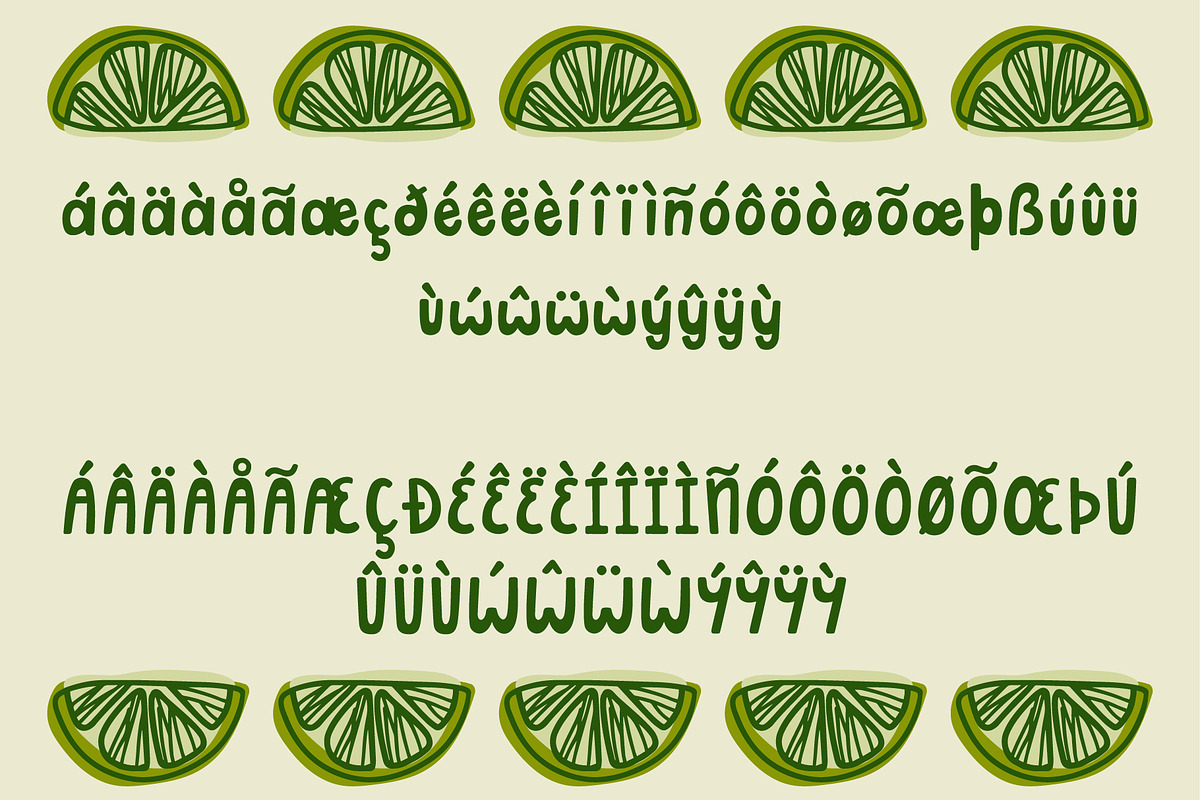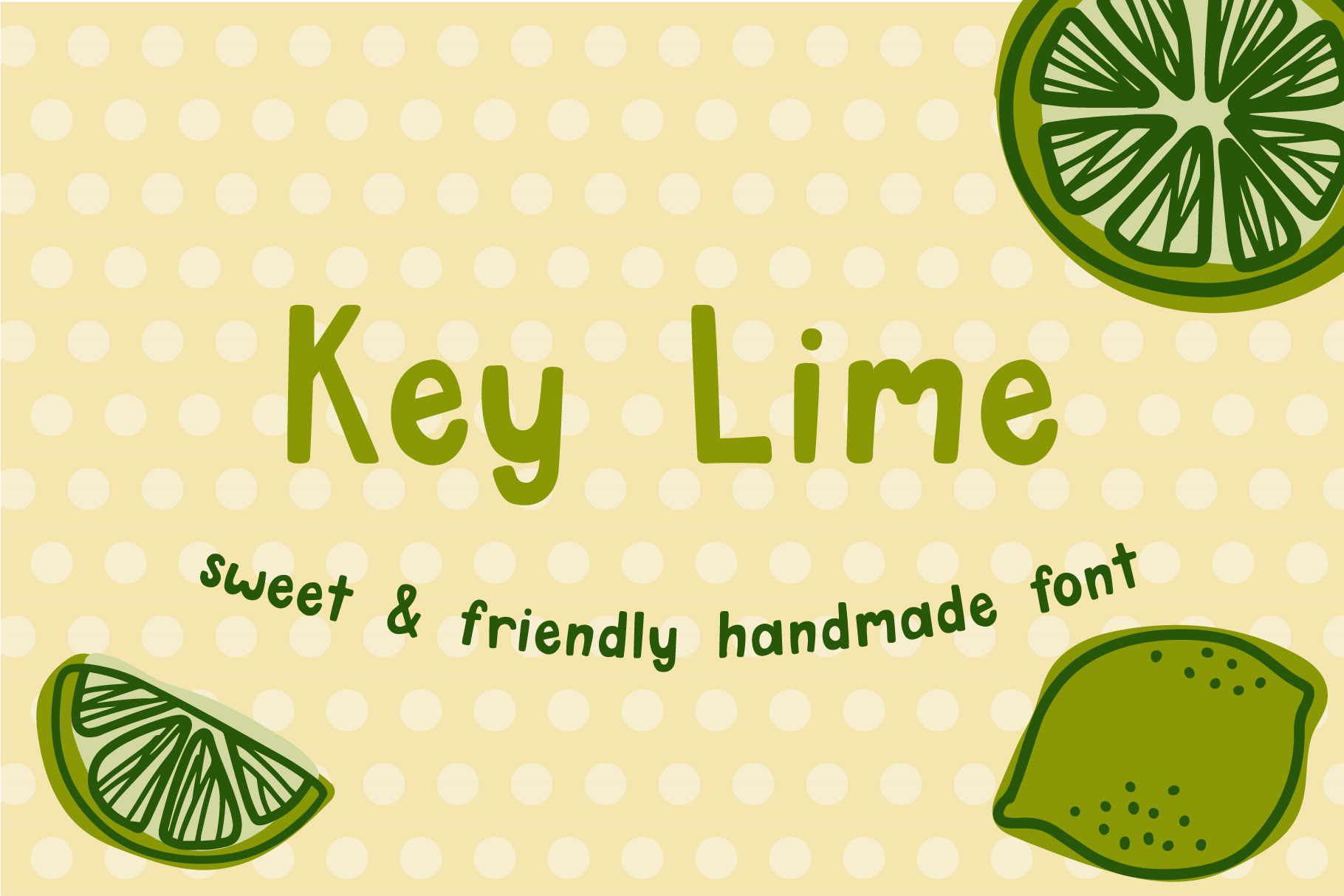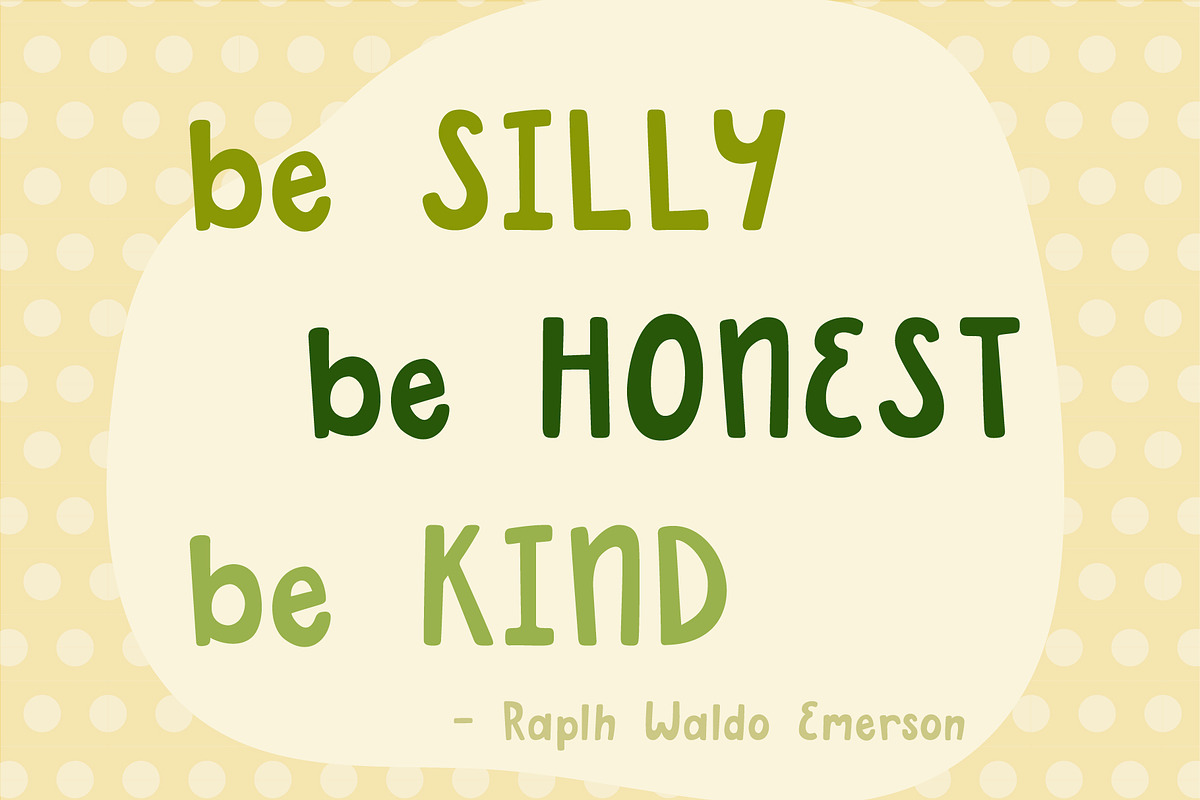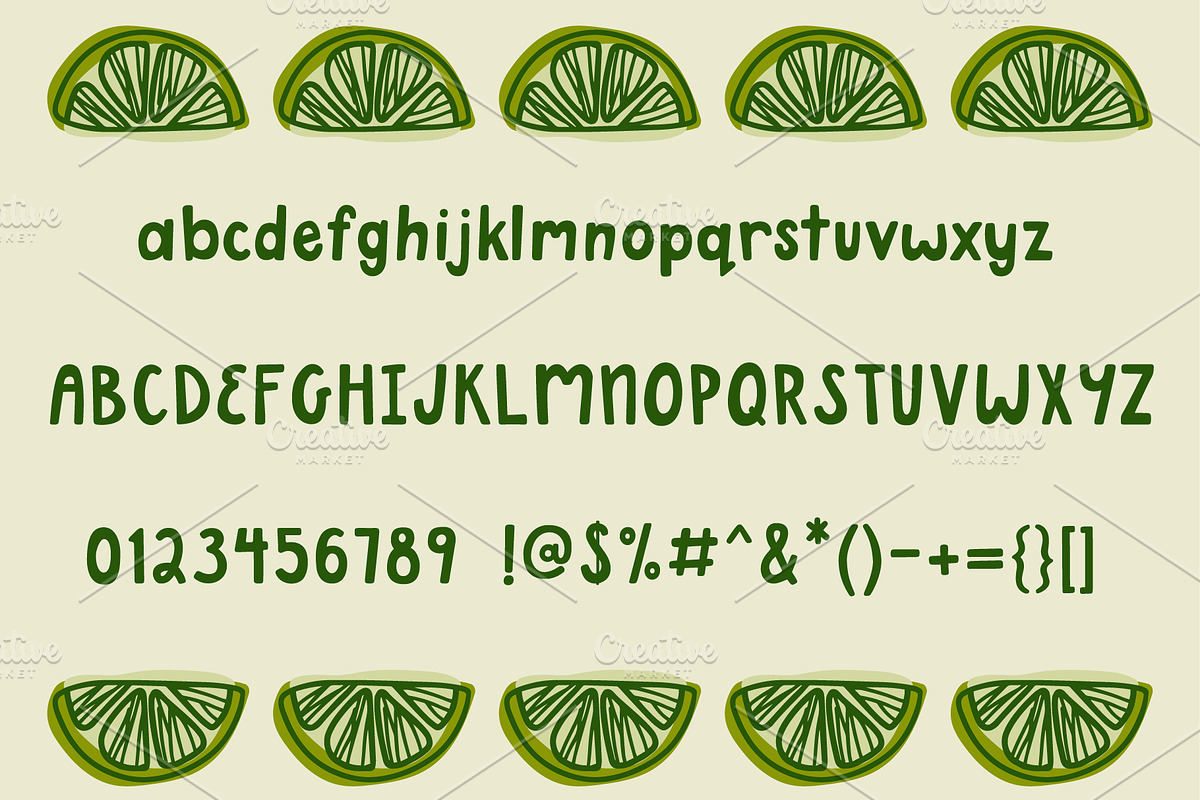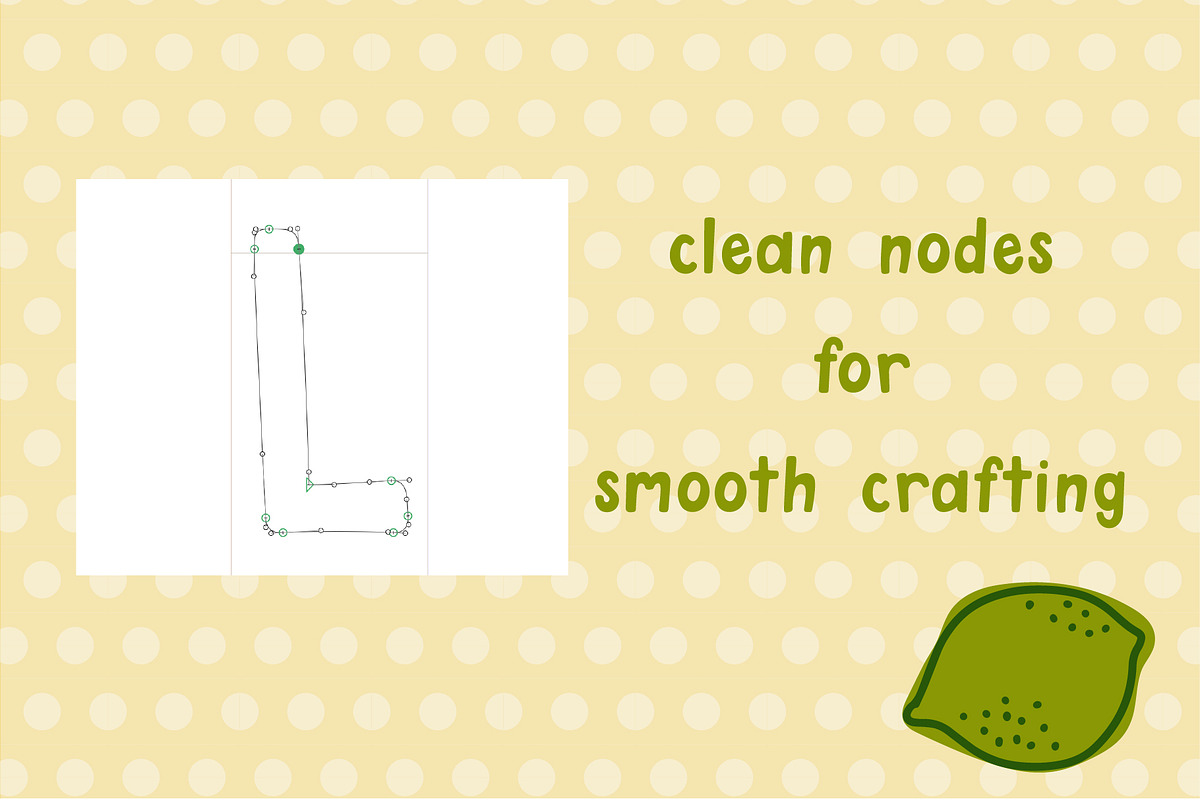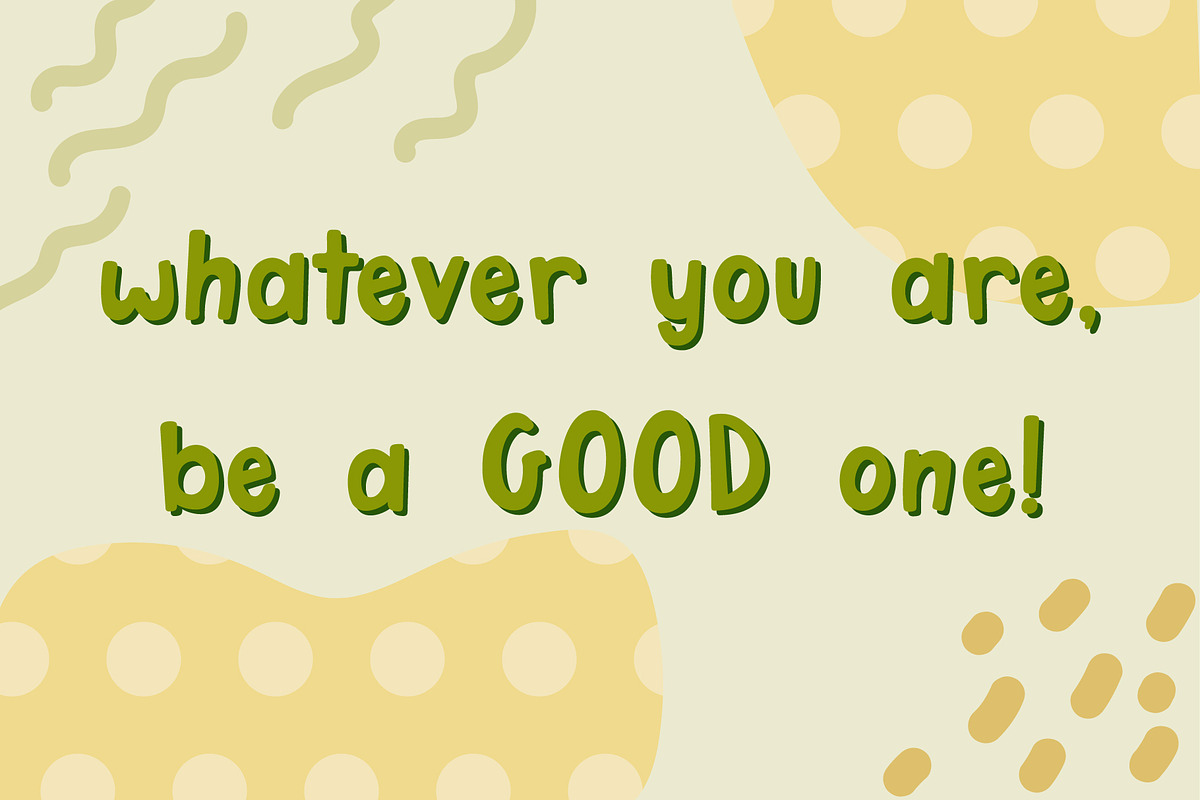
Key Lime Sweet Sans Serif Font
Key Lime is a handmade font that is perfect for crafting. It is sweet, relaxed, and friendly.
Key Lime features:
carefully cleaned, smooth letters Western European language support full numerals, symbols, and punctuation OTF, TTF, and WOFF file types
Key Lime is great for your next fun project! It is easy to read while still having personality.